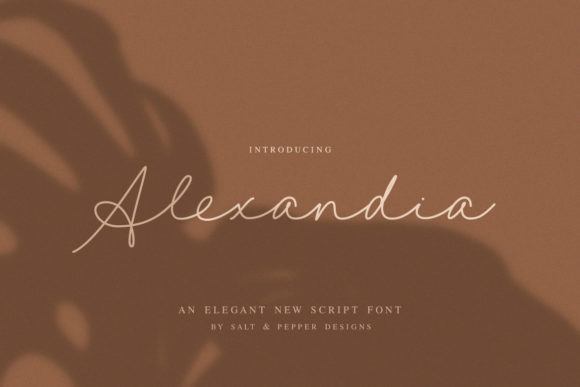
The Sweet Charm of Alexandia Font: A Designer’s Delight
I still remember the frustration of working on a project, pouring my heart and soul into every detail, only to hit a roadblock when it came to choosing the perfect font. My client wanted something sweet, lovely, and elegant, but not too over-the-top. I scoured the internet, tried out countless fonts, but nothing seemed quite right. That was until I stumbled upon the beautiful Alexandia Font. ✨
So, what makes Alexandia so special? Let’s dive into the good stuff and, of course, a few minor quirks. 😊
- ✨ Smooth and Balanced: Alexandia has a beautiful flow that’s not too thin or too thick, making it perfect for a wide range of projects.
- ✅ Variety of Glyphs: This font comes with a range of glyphs, including OpenType features and stylistic alternates, giving you plenty of creative options.
- 💕 Lovely Handwritten Feel: The font has a sweet, handwritten charm that’s perfect for projects that need a personal touch.
- ⚠️ Limited Use in Very Large or Very Small Sizes: While Alexandia looks stunning in most sizes, it may lose some of its charm when used in extremely large or small sizes.
- 🤔 Some Letter Combinations May Require Manual Adjustment: As with any font, you may need to tweak some letter combinations to get the perfect look.
The Story Behind Alexandia Font
While the true story behind Alexandia Font remains a mystery, it’s easy to imagine that it was created with love and care by a designer who wanted to craft a font that would bring joy to others. Perhaps the designer, inspired by the beauty of handwritten letters, set out to create a font that would capture the essence of sweet, personal communication. Whatever the inspiration, Alexandia Font is a true gem that deserves to shine in your design projects. 💫
| Font Name | Alexandia Font |
| Author | Salt and Pepper Fonts |
Q: Is Alexandia Font suitable for body text?
A: While Alexandia Font is beautiful, it’s best suited for headings, titles, or short paragraphs. For longer body text, you may want to choose a font with better readability.